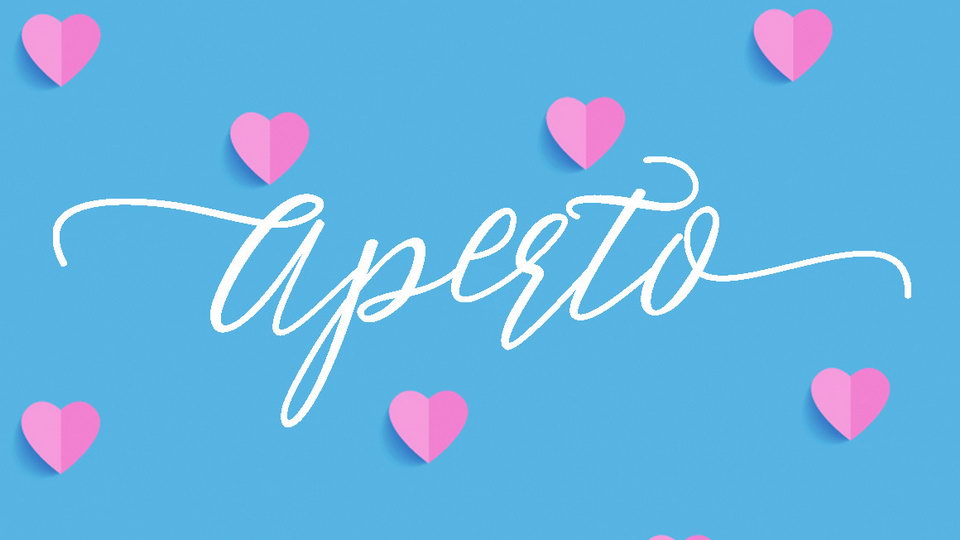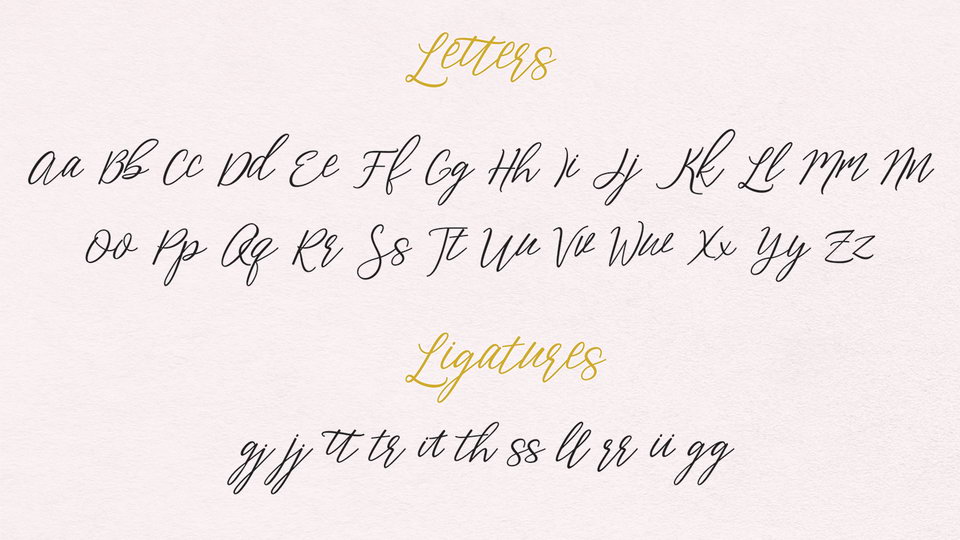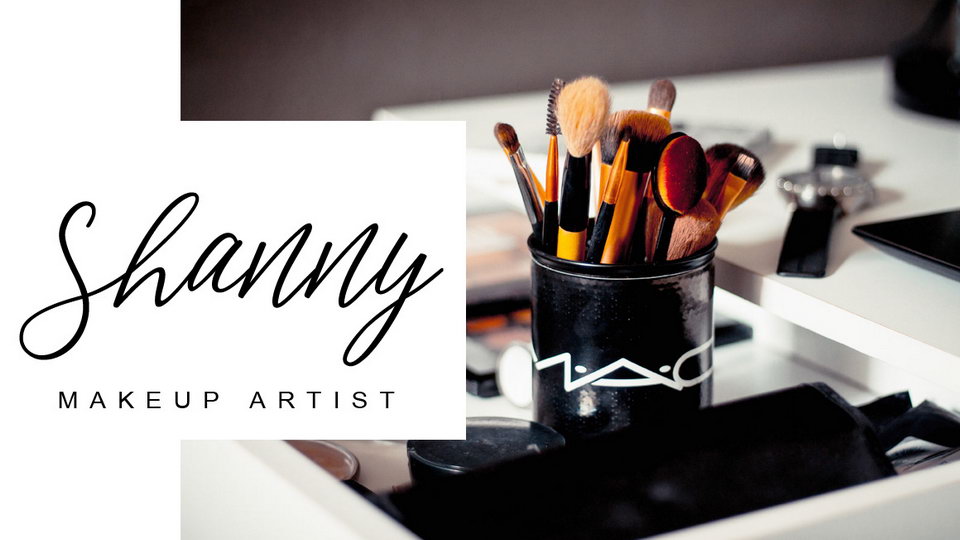
Aperto is a gogreous handwritten script font. It contains full set of glyps, including uppercase and lowercase letters, numbers, symbols and also ligatures.
Aperto font is perfectly suits for logos, watermarks, magazines and social media, wedding invitations and greeting cards and much more.